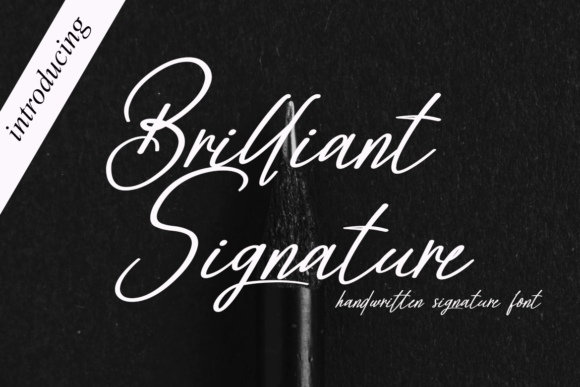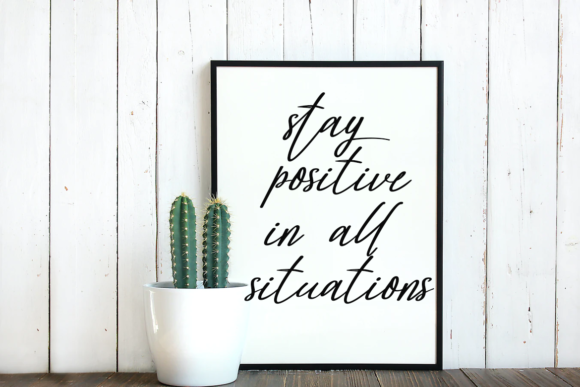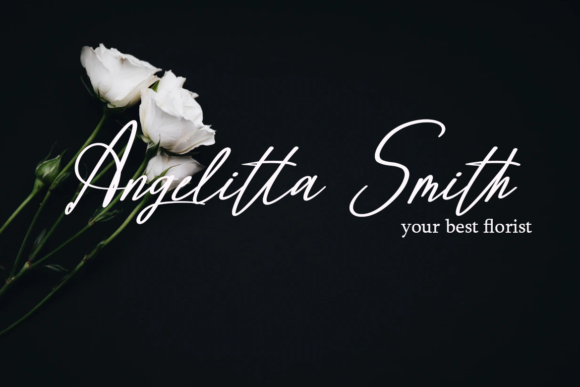
“Brilliant Signature” is a thin and beautiful handwritten font that exudes elegance and sophistication. With its genuine and well-rounded letters, this font is a true work of art, capturing attention and leaving a lasting impression on any design.
The defining characteristic of “Brilliant Signature” is its thin strokes, which give the font a delicate and refined appearance. The letters flow effortlessly, creating a sense of fluidity and grace. This font is perfect for designs that require a touch of sophistication, such as wedding invitations, elegant branding, high-end packaging, luxury products, and more.
The adaptable style of “Brilliant Signature” allows it to shine across a wide range of design projects. Whether you’re working on a romantic wedding invitation or a sleek and modern logo, this font seamlessly blends with different aesthetics, adding a touch of refinement to each design.
The beauty of “Brilliant Signature” lies in its versatility. Its thin and well-rounded letters make it ideal for various applications, such as branding, stationery, quotes, social media graphics, website design, and more. It effortlessly elevates the visual appeal of any project and adds a sense of sophistication to the overall composition.
The clean and elegant look of “Brilliant Signature” makes it a great choice for both print and digital media. When used in printed materials like wedding invitations or business cards, the font stands out with its delicate strokes and adds a touch of luxury. In digital applications, such as social media posts or website headings, “Brilliant Signature” brings a refined and polished feel to the design.
The versatility and adaptability of “Brilliant Signature” make it a valuable asset for designers who seek to create ravishing and visually captivating designs. Its genuine and well-rounded letters allow for seamless integration into various projects, whether it’s for personal or commercial use.
In conclusion, “Brilliant Signature” is a thin and beautiful handwritten font that adds a touch of elegance and sophistication to any design. Its genuine and well-rounded letters make it a work of art, captivating viewers and creating a lasting impression. Fall in love with its adaptable style and let it inspire you to create ravishing designs that leave a lasting impact.